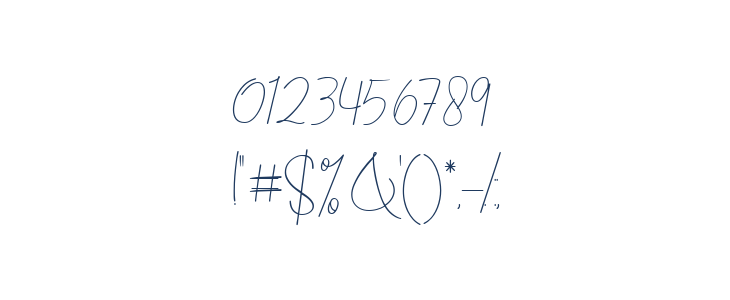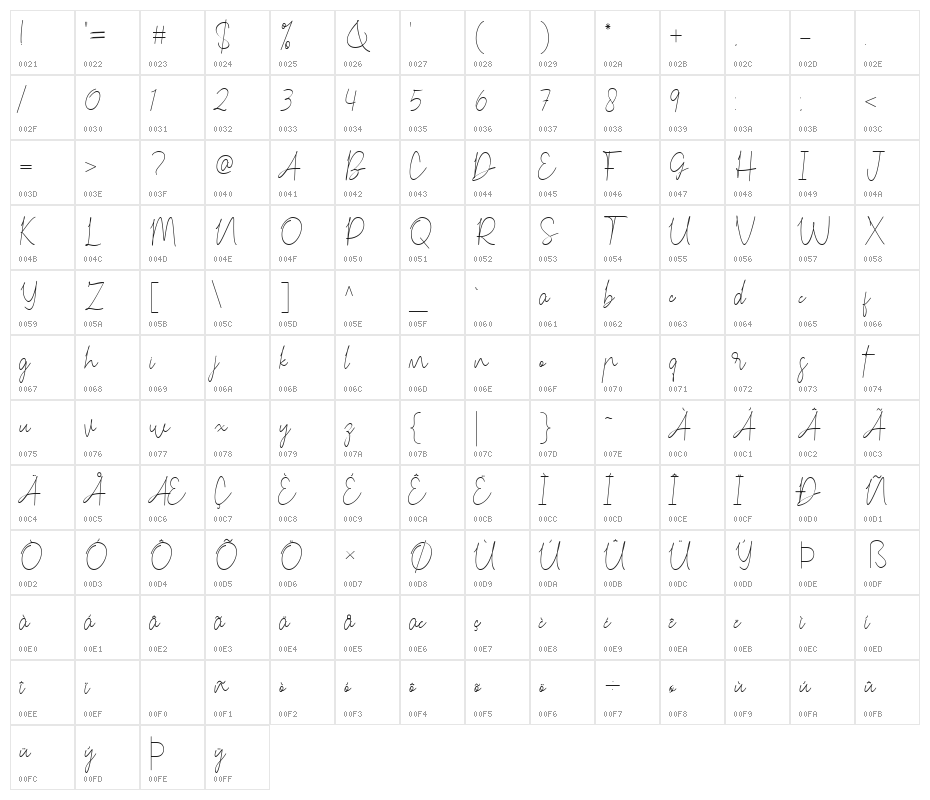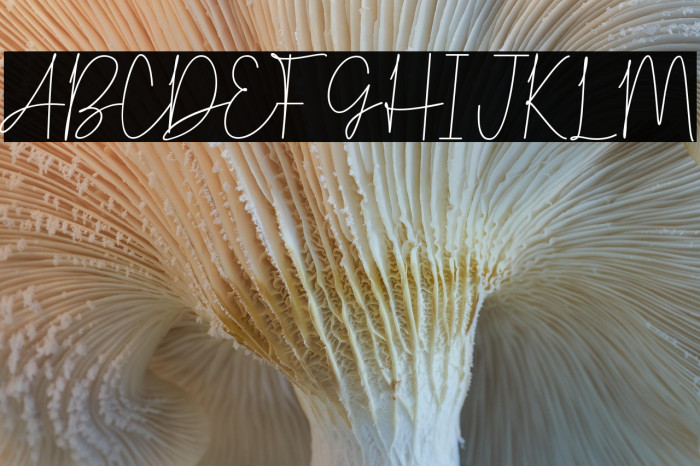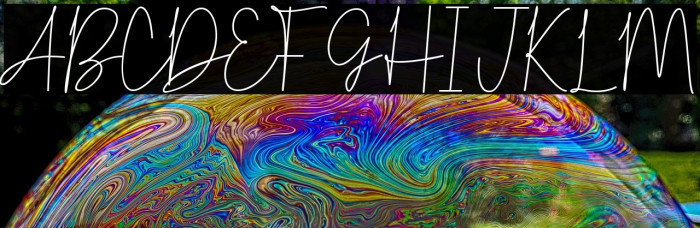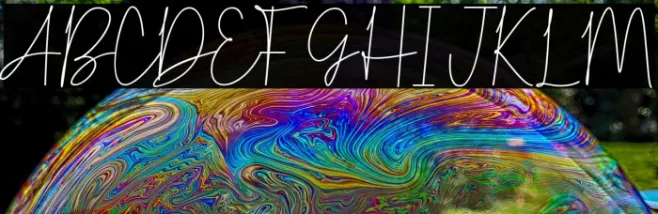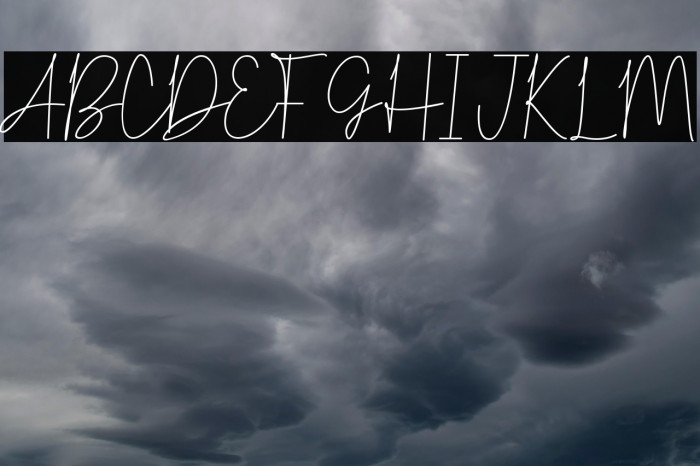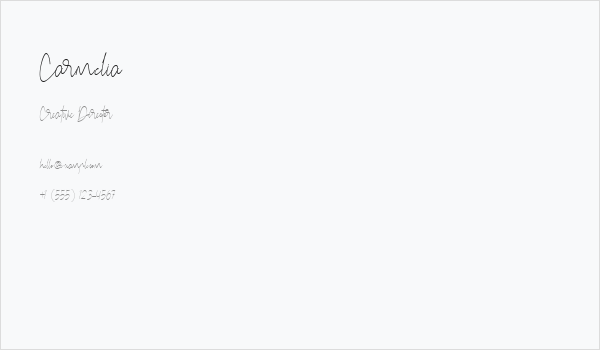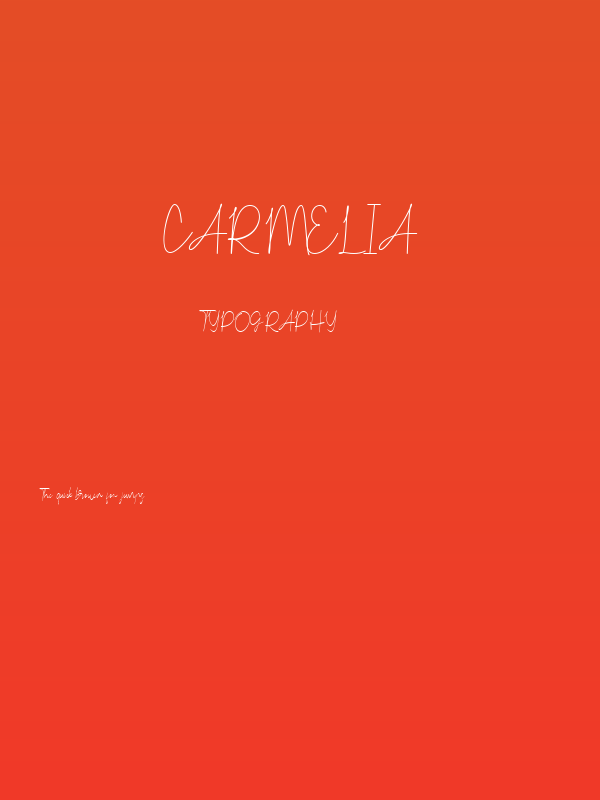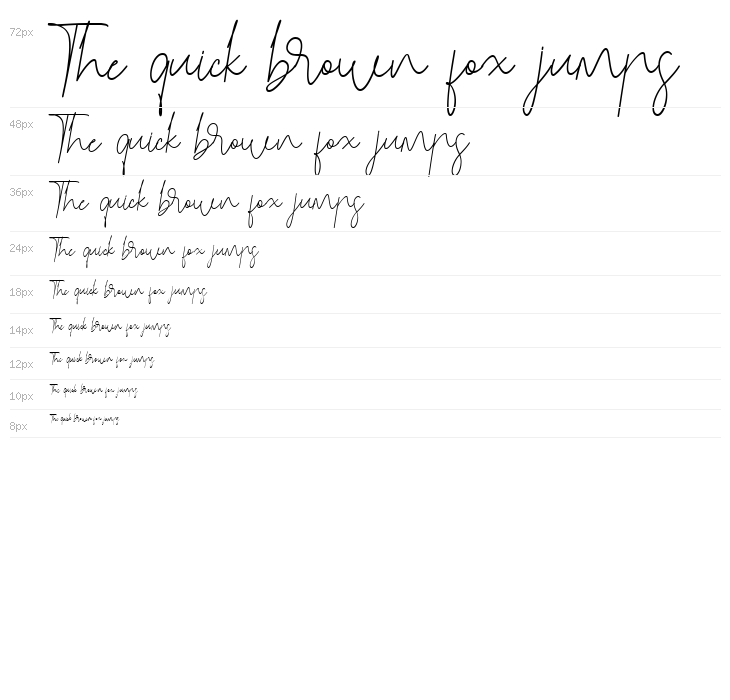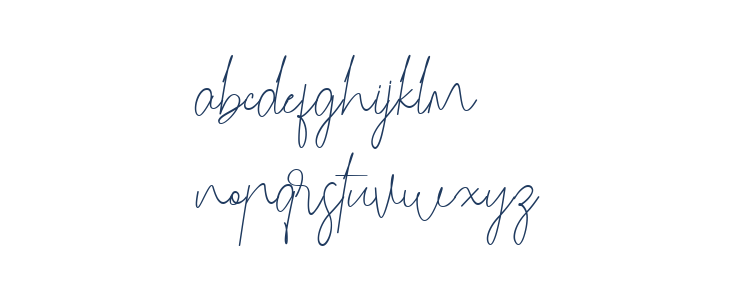
Carmelia Font
Carmelia Description
This font features a delicate and flowing script style, characterized by its elegant and elongated letterforms. The strokes are thin and consistent, giving it a graceful and airy appearance. The uppercase letters are slightly more structured, while the lowercase letters exhibit a more fluid and cursive nature. Numbers and special characters maintain the same elegant style, ensuring a cohesive look across all text. The overall design is reminiscent of handwritten calligraphy, making it suitable for projects that require a personal and sophisticated touch.
| Proposed Projects | Ideal for wedding invitations, greeting cards, personal branding, and elegant packaging designs. |